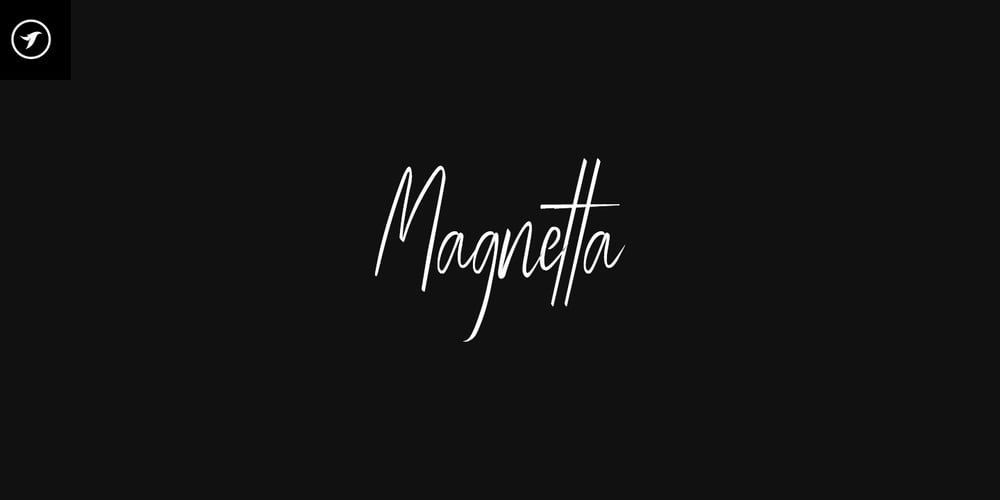
Magnetta Handwriting Font Family was designed by Lisha Joseph and published by Designova. Magnetta Handwriting contains 1 styles and family package options. Magnetta is a lovely, beautiful handwritten font for luxury / signature / branding / logotype / wedding invites / greeting cards / promotional graphics. Magnetta is handcrafted with a custom brush, having perfection and aesthetics at its level bestAdvanced Kerning: We have performed advanced, in-depth kerning to ensure the font looks amazing on all possible letter combinations.